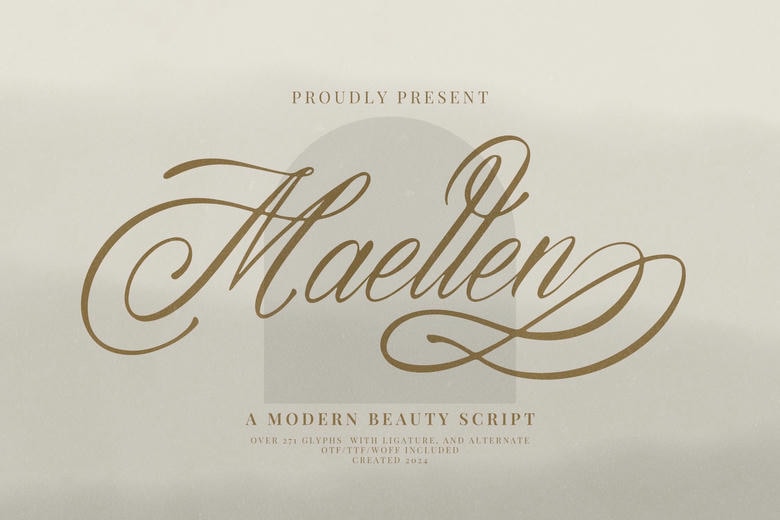
Maelten Font
Maelten is a elegant,clean looking script font that has a modern feel to it. The form of the letters is so fluid giving the font a classy look and for that reason it is suitable for use in invitations, logos and any other design that calls for this classy look.
Maelten Calligraphy Script Font